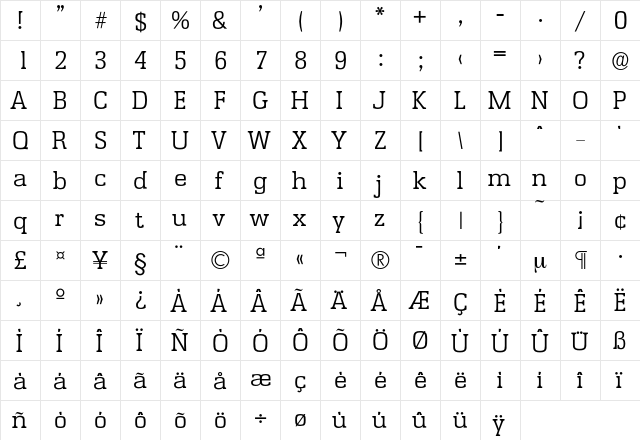
Enschede-Light Regular
Design Context for Enschede-Light Typeface
Enschede-Light takes a measured approach to typography — its balanced proportions and neutral character make it a reliable workhorse for both digital and print work. The delicate stroke weight brings airiness and refinement to layouts.